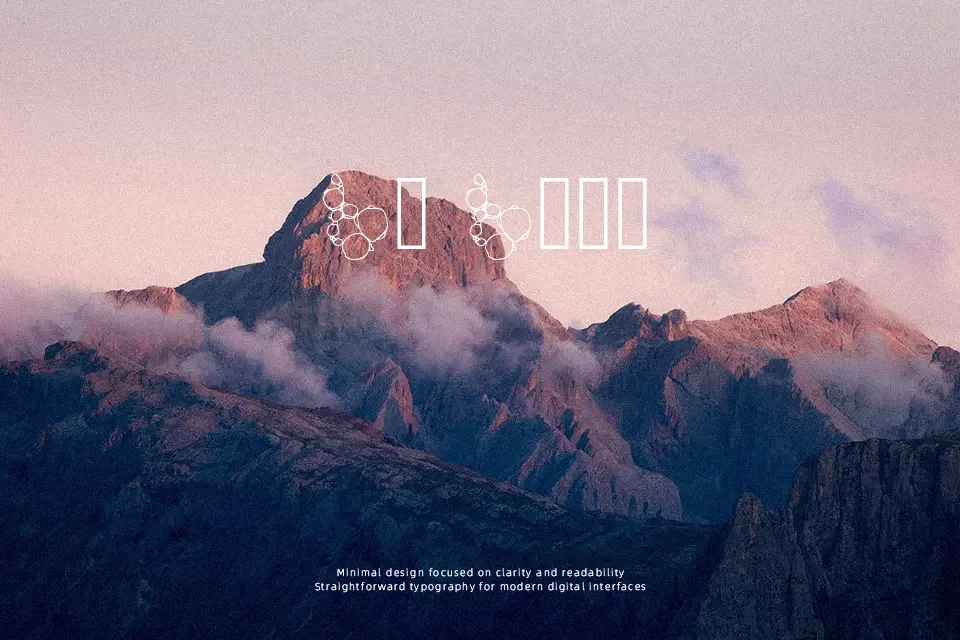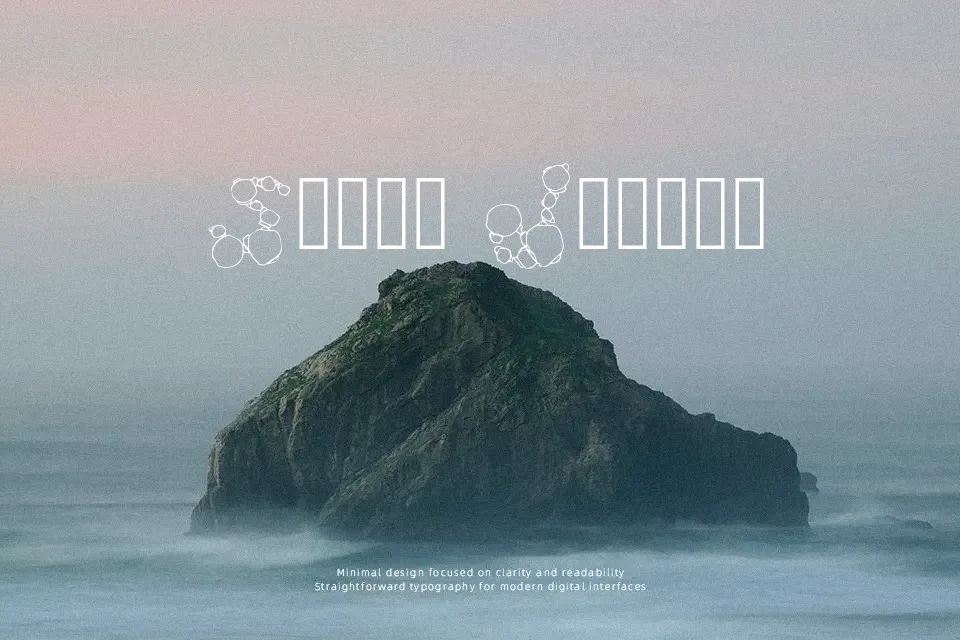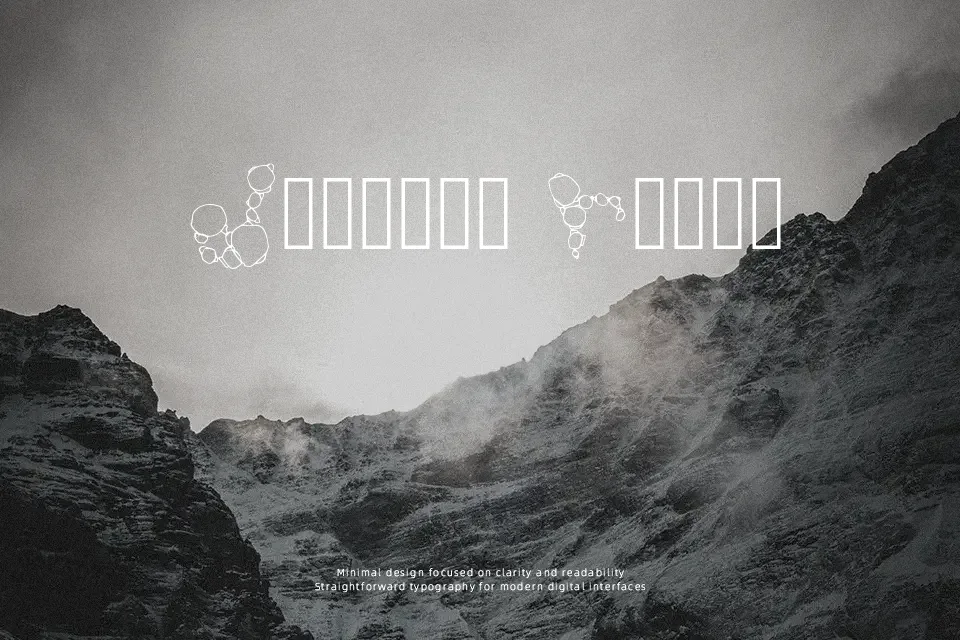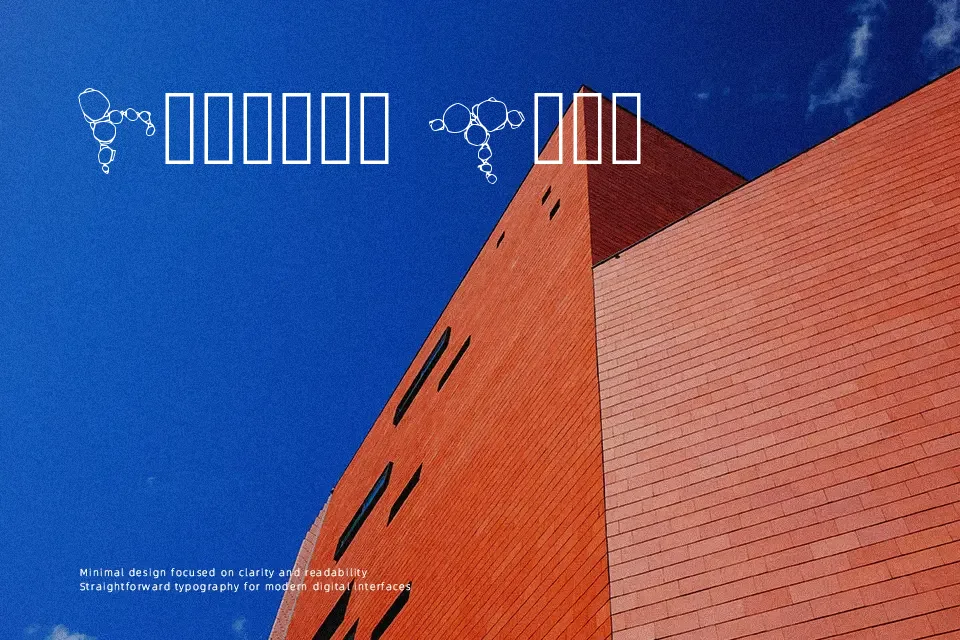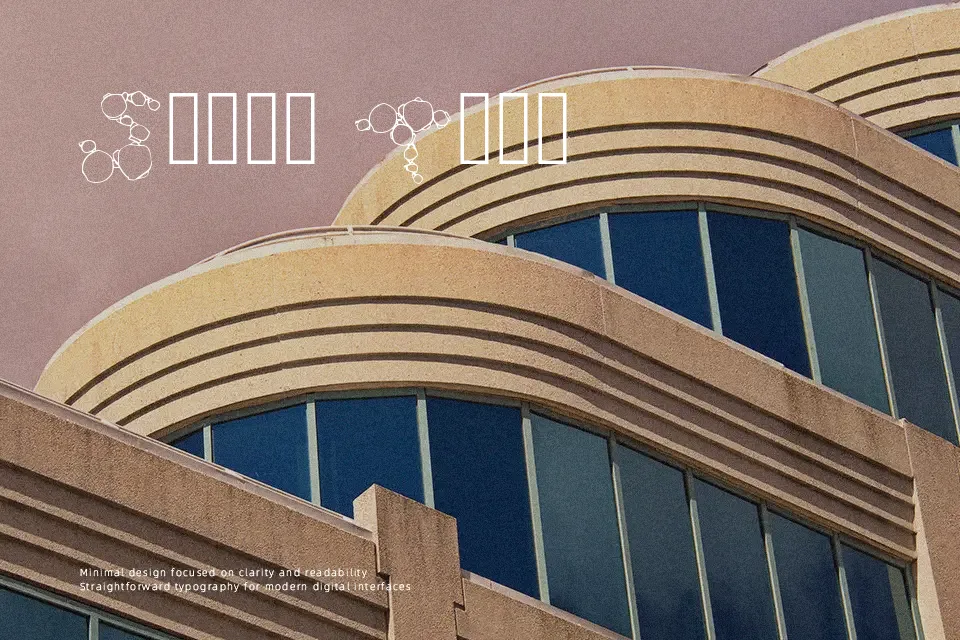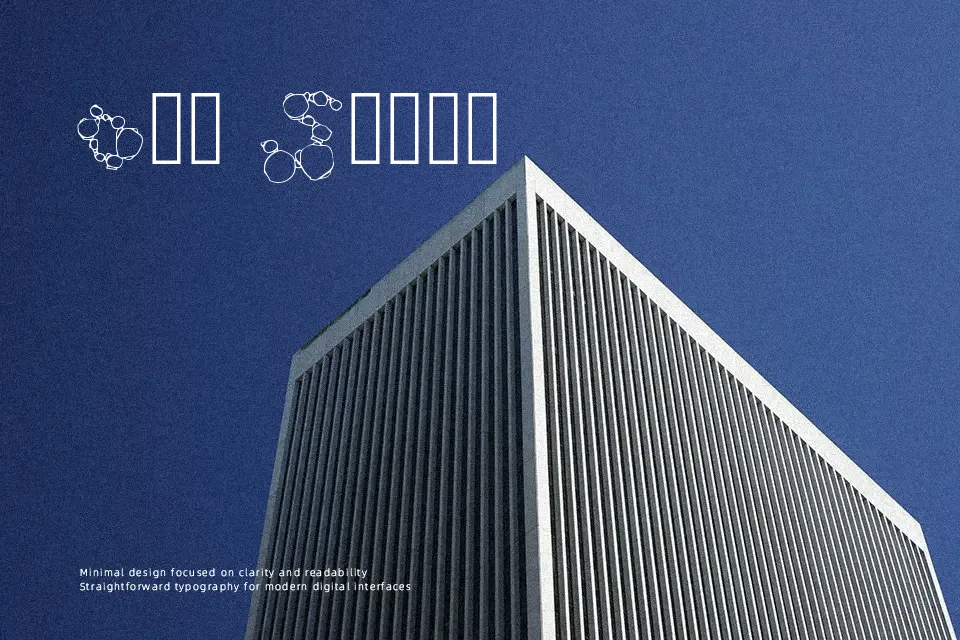
Popcorn Time Font
Designed by Famoys_saz
Popcorn Time Font features a highly unconventional structure where individual characters are assembled from multiple rounded elements, creating a bubbly and abstract silhouette. The strokes are completely replaced by these clustered forms, giving the typeface a surprisingly dense but playful rhythm. Because of its fragmented construction, the letterforms maintain strong visibility in large display text but require generous spacing to remain recognizable. This distinctive geometric approach is perfect for energetic festival posters, children’s book covers, and snack food packaging. However, the heavy decorative details become less effective at smaller sizes, drastically reducing comfort during extended reading. The bold, disjointed proportions make it an excellent choice for short headlines, though it heavily sacrifices legibility when applied to long paragraphs.
snack food packaging
playful event posters
children’s book covers
Perfect for headline, kids, and packaging, with a bold and decorative style.